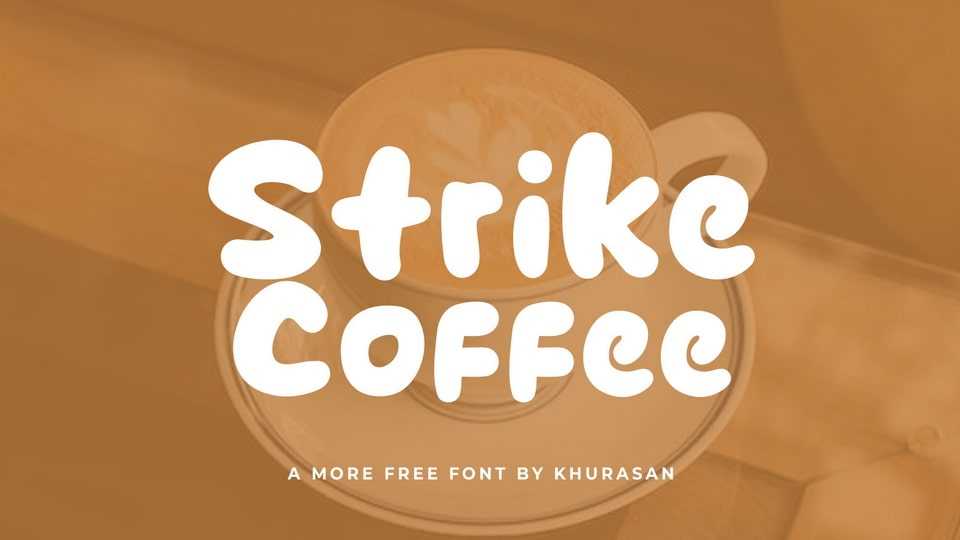
Download Strike Coffee font, a handcrafted cartoon typeface filled with a bold yet fun vibe. Add an eye-catching and playful touch to your designs with Strike Coffee font.